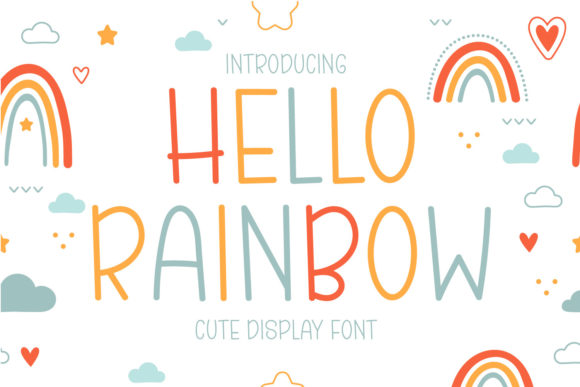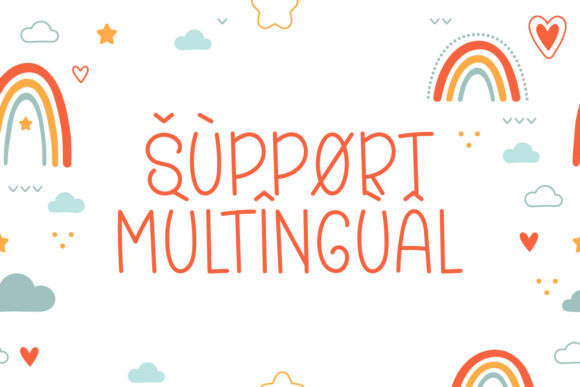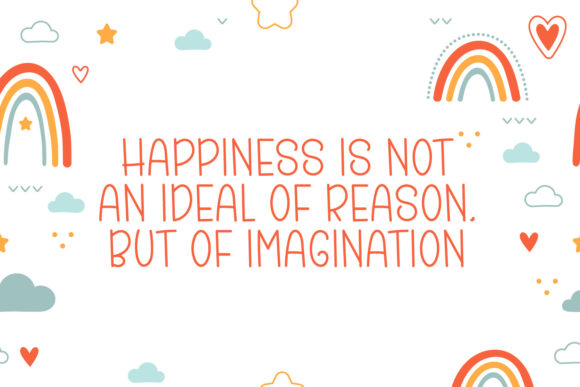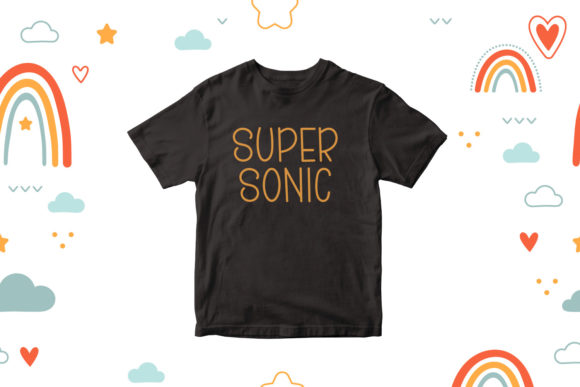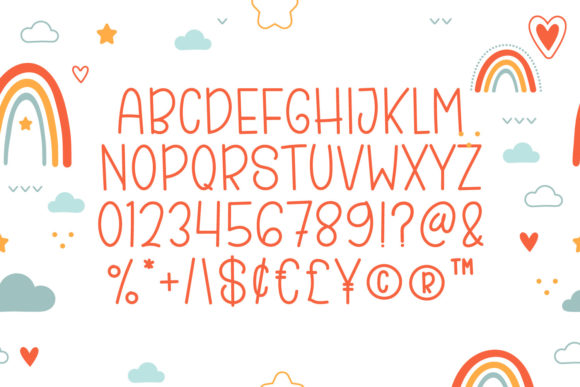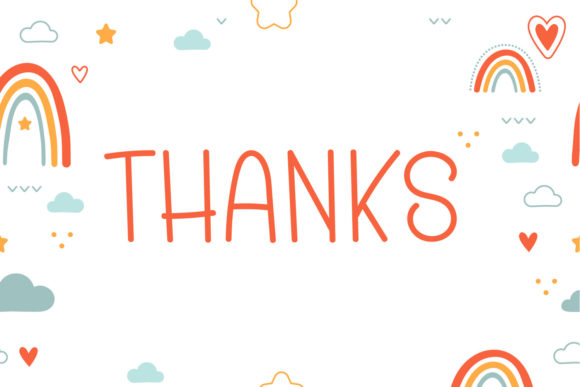
Hello Rainbow Font
About Hello Rainbow Font
Hello Rainbow is a cute, thin lettered and friendly handwritten font. No matter the topic, this font will be an incredible asset to your fonts’ library, as it has the potential to elevate any creation.